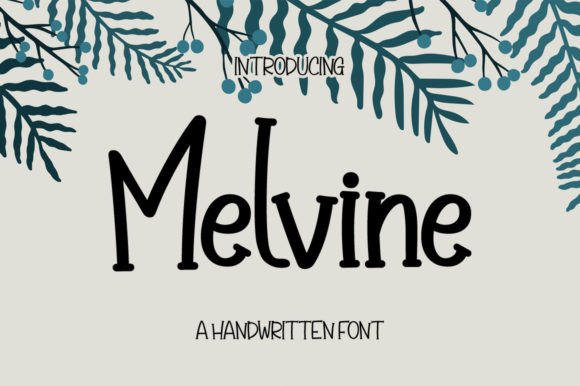
Dive into the world of Melvine Font, a captivating serif creation by Nirmala Creative. This font exudes a charm that's both playful and sophisticated, making it the perfect choice for your next design project. Melvine Font is the culinary connoisseur's secret weapon, an essential ingredient for any bakery-inspired design. Its delicate curves and elegant strokes evoke the warmth and inviting ambiance of a classic bakery.
Unleash your creativity and let Melvine's magic transform your invitations, thank you cards, and quotes into delightful works of art. It's the perfect font for greeting cards, logos, and business cards that demand attention and leave a lasting impression. Melvine Font elevates ordinary designs to extraordinary with its timeless allure, adding a touch of class to every project it graces.
Step into a world of endless possibilities with Melvine Font. Its versatility knows no bounds, making it the ideal choice for both personal and professional projects. Create stunning branding materials, eye-catching social media graphics, or simply add a touch of elegance to your personal correspondence. Melvine Font is the font that does it all, turning your design dreams into a delicious reality.